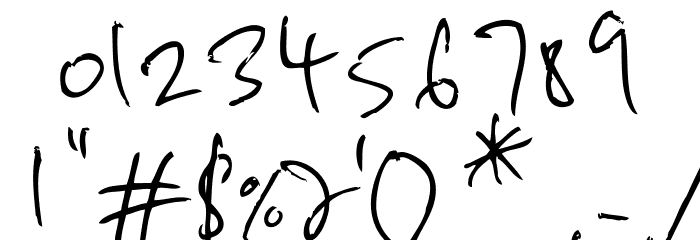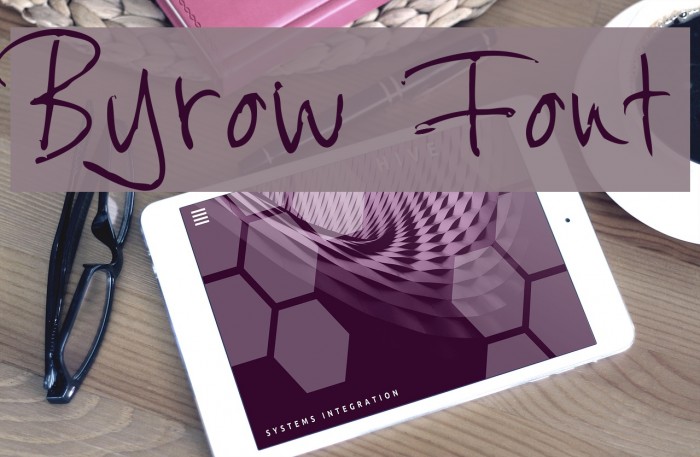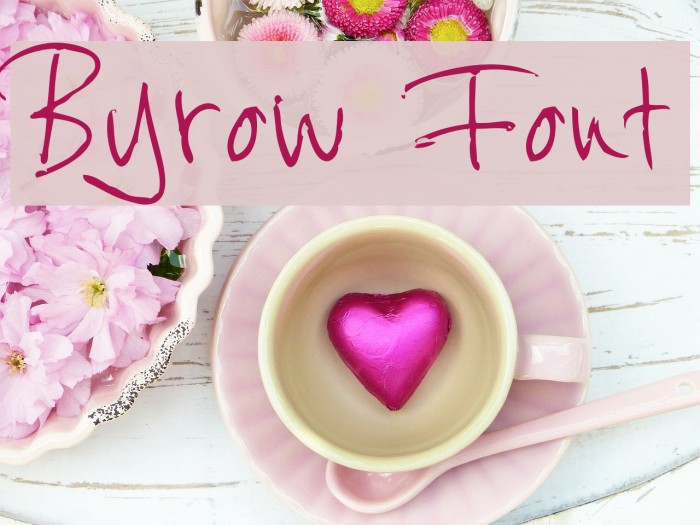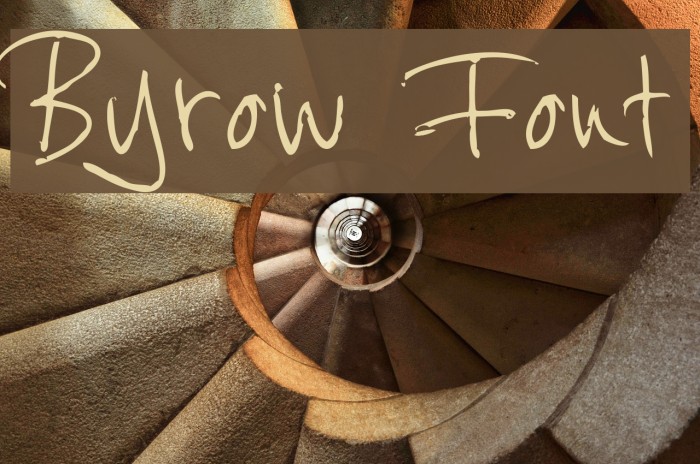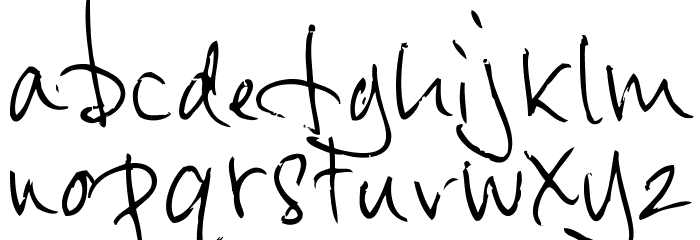
Byrow Font
Byrow Description
This font exhibits a dynamic and expressive handwritten style, characterized by its fluid and irregular strokes. The letters are crafted with a casual flair, giving an impression of spontaneity and creativity. The uppercase and lowercase letters maintain a consistent style, with some variations in stroke thickness that add to the overall organic feel. The numerals and special characters follow the same aesthetic, ensuring a cohesive look across all elements. This font's unique personality makes it stand out, offering a sense of individuality and artistic expression.
A dynamic and expressive handwritten font with fluid, irregular strokes from Handwritten fonts.
- Proposed Projects: Ideal for creative projects such as personal branding, artistic posters, greeting cards, and informal invitations.
- Use Case: Logos, Headlines, Artistic projects